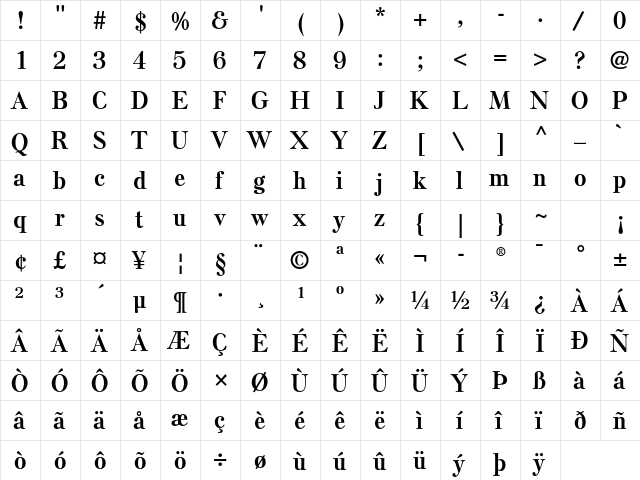
Else NPL Std Bold Font Preview
Else NPL Std Bold
Else NPL Std Bold Font Details
| Designer | Robert Norton |
Design Context for Else NPL Std Typeface
Else NPL Std takes a measured approach to typography — its balanced proportions and neutral character make it a reliable workhorse for both digital and print work. The heavy weight commands attention and anchors typographic hierarchies.